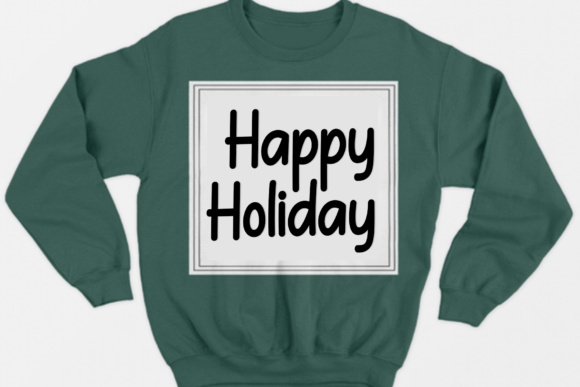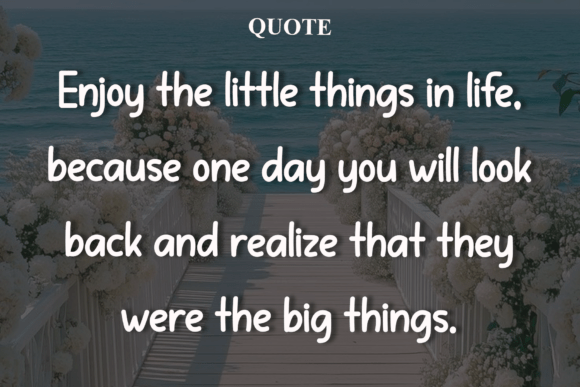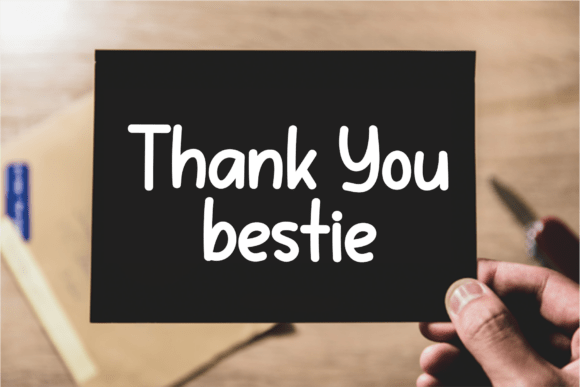
Birthday Handwriting Font
🎂 Birthday Handwriting Modern Handwritten Font
Brighten up any celebration with Birthday Handwriting, a new modern handwritten font that is chunky, friendly, and radiates a joyful, hand-drawn energy.
This typeface features solid, medium-to-bold strokes and generously rounded letterforms, creating an approachable and comforting aesthetic. The slight variation in height and alignment gives it the desirable, authentic feel of casual, heartfelt penmanship.
Birthday Handwriting is highly versatile and designed for excellent readability, making it perfect for both display and short text. It provides a comprehensive character set ideal for various celebratory and casual projects.
This cheerful font is the go-to choice for birthday party invitations, greeting cards, children’s crafts, classroom materials, personal blogs, social media headers, product labels for handmade goods, or any design needing a warm, happy, and effortlessly modern handwritten style with maximum impact and charm